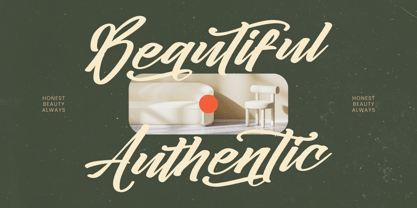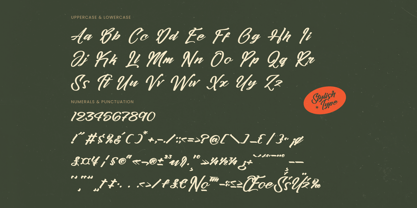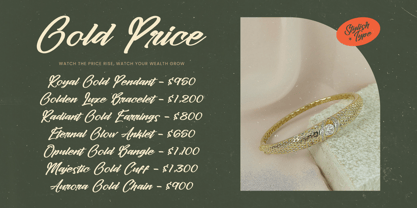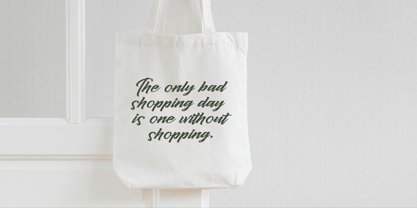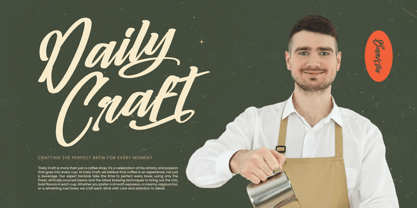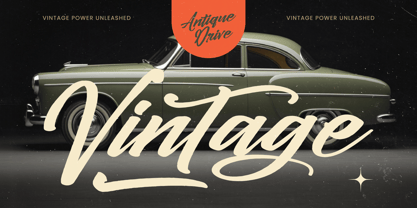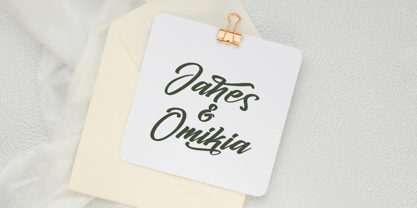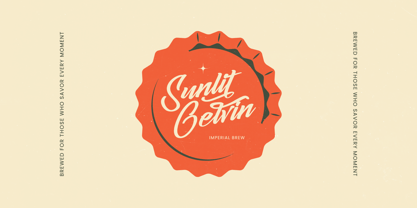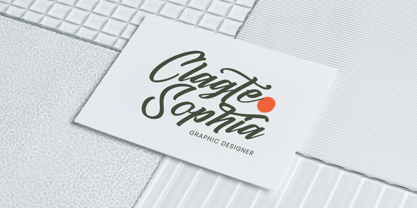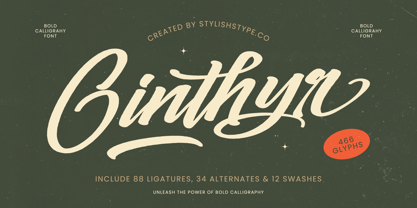
Ginthyr
par Stylishtype Studio
La famille de polices Ginthyr a été conçue par Heru Utama Putra et publiée par Stylishtype Studio. Ginthyr contient 2 styles et options de package familial.
Ginthyr - Bold Calligraphy Font , from Stylishtype, Suitable for any projects such as: logos, branding projects, homeware designs, product packaging, mugs, quotes, posters, shopping bags, t-shirts, book covers, name card, invitation cards, greeting cards, label, photography, watermark, special events, and all your other luxury and beautiful projects that need a Luxury Script taste.